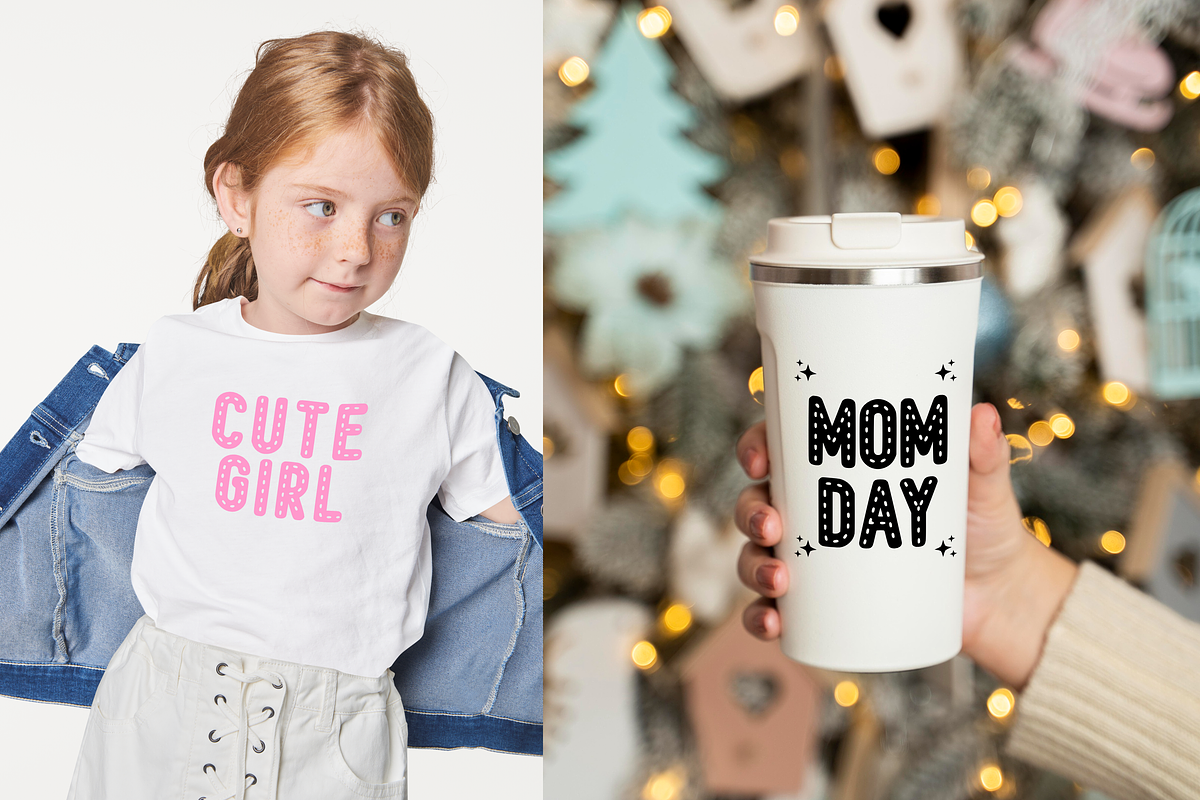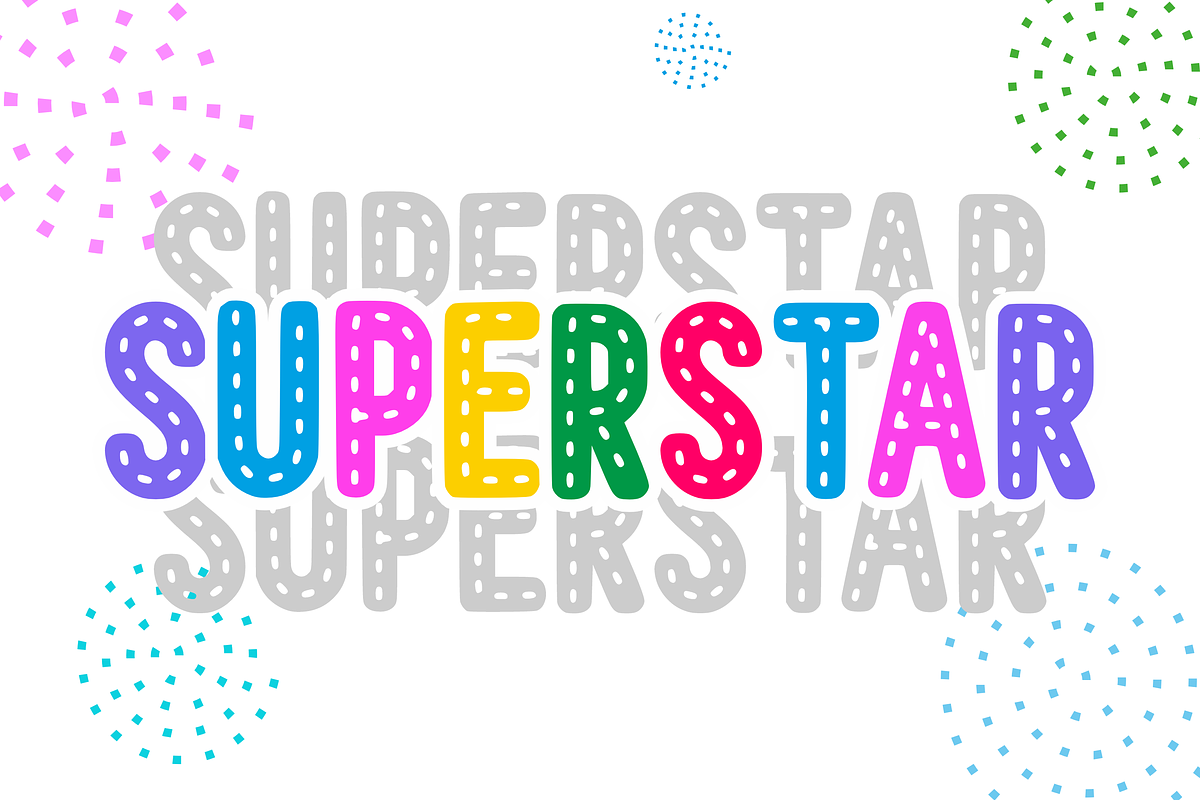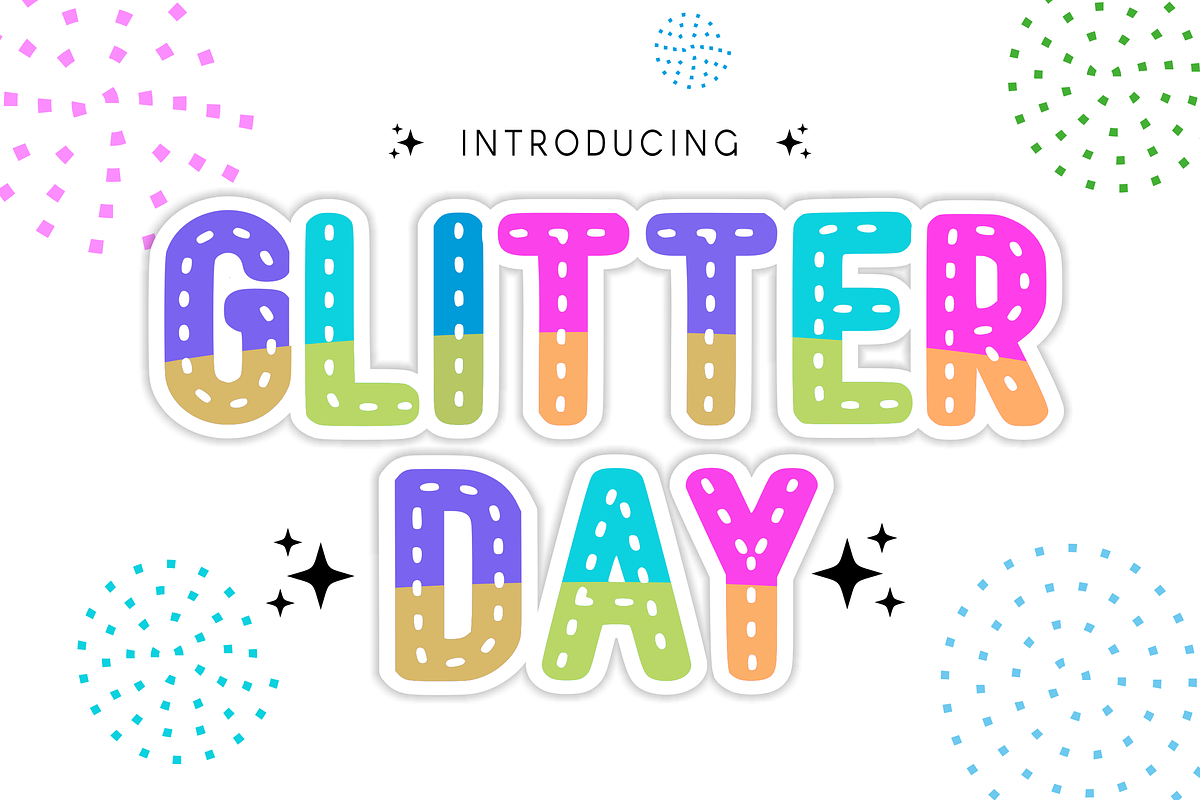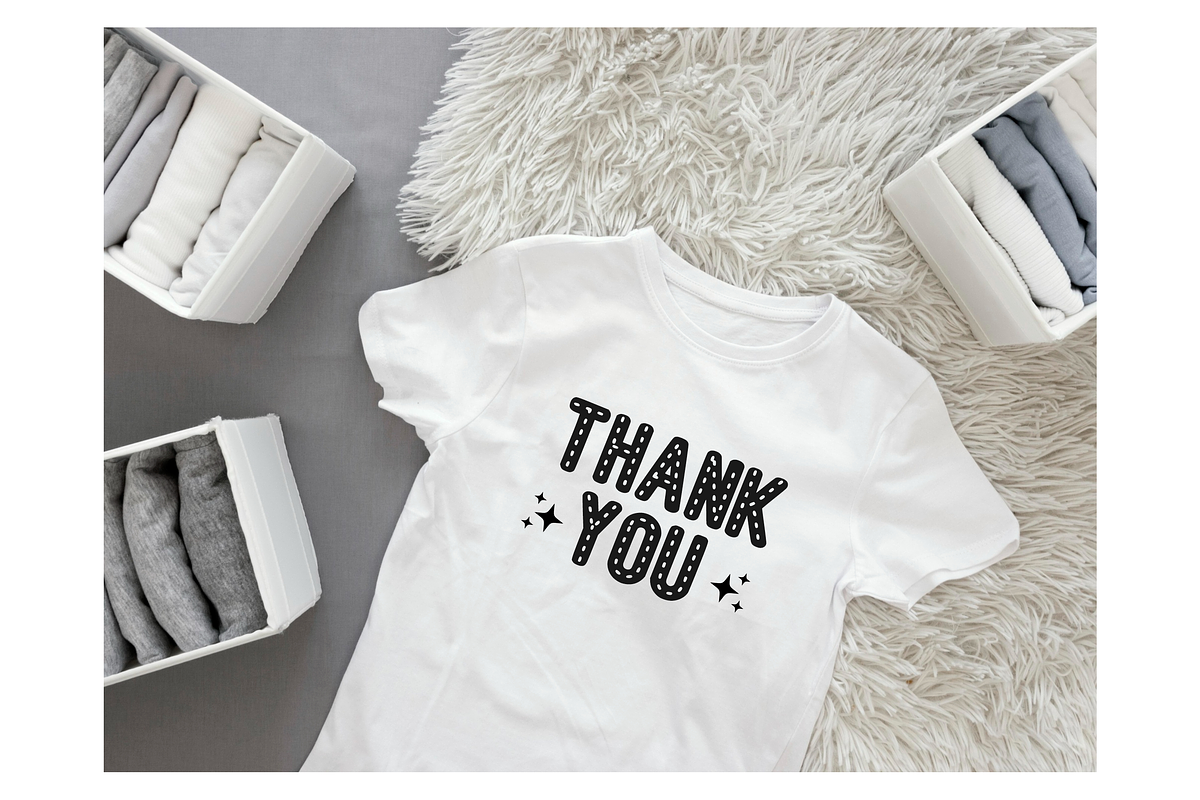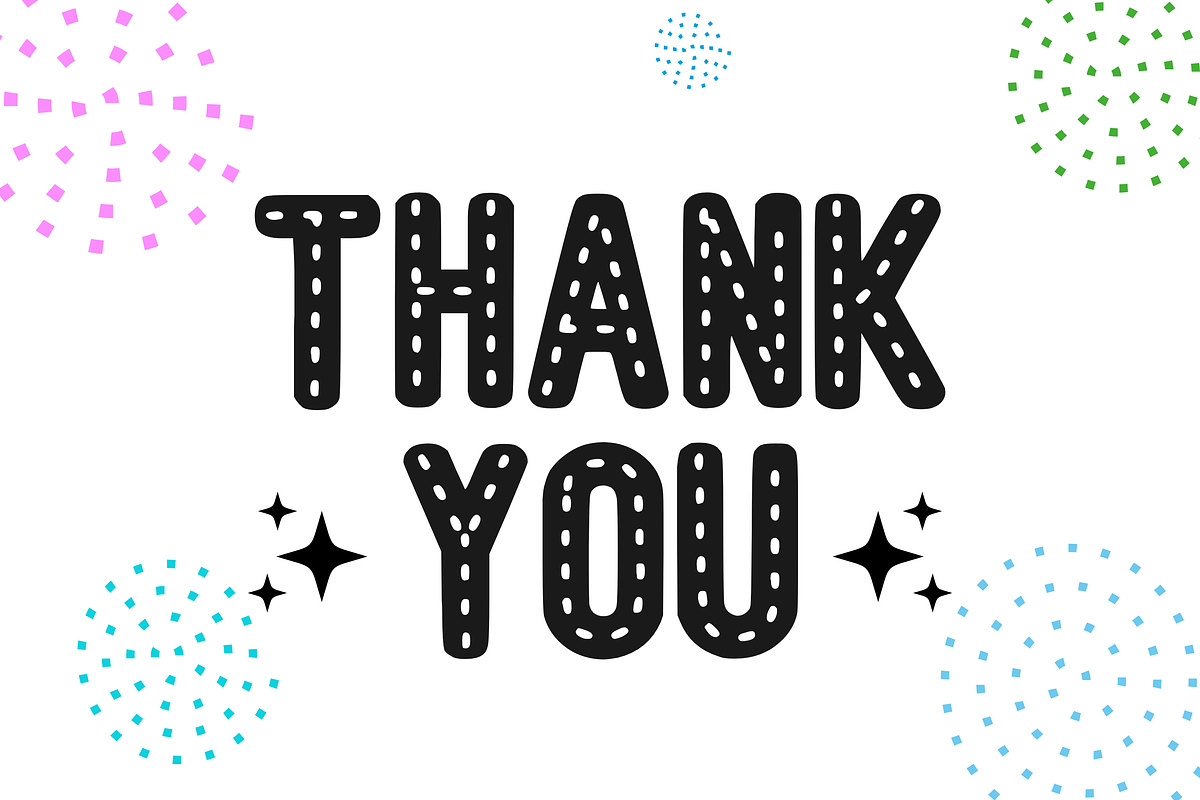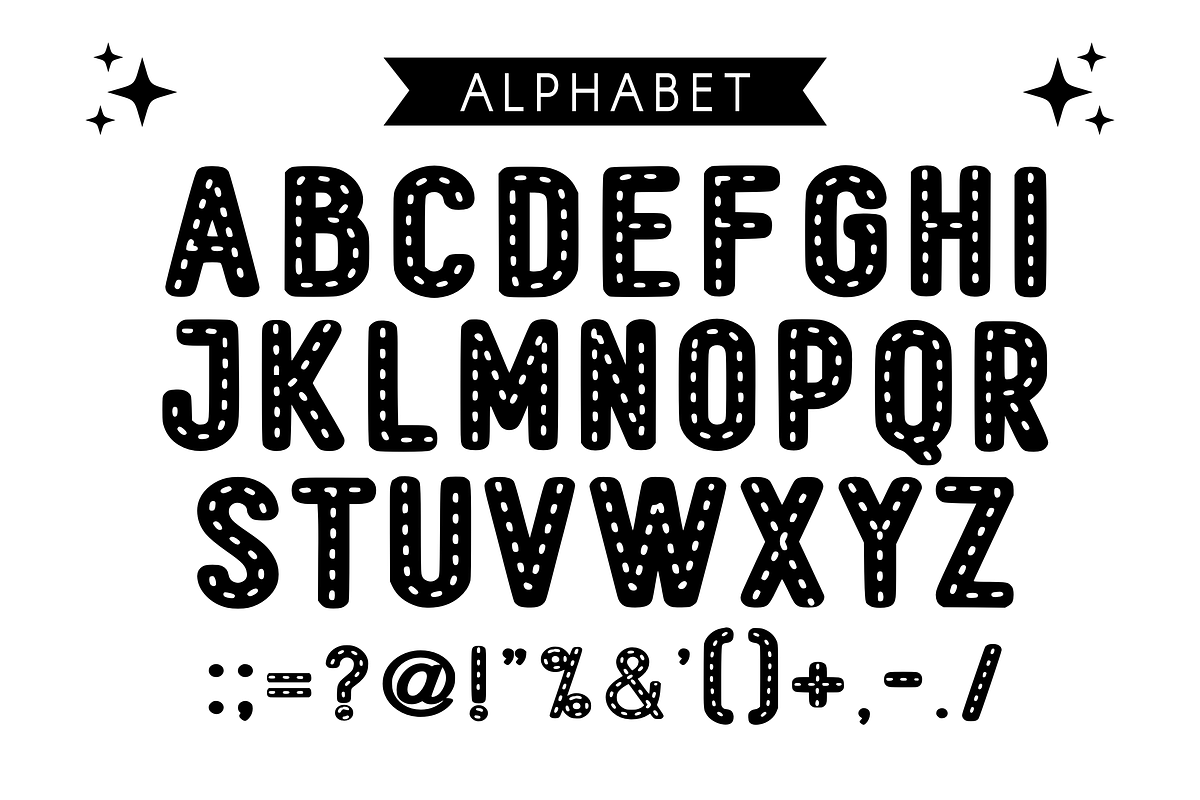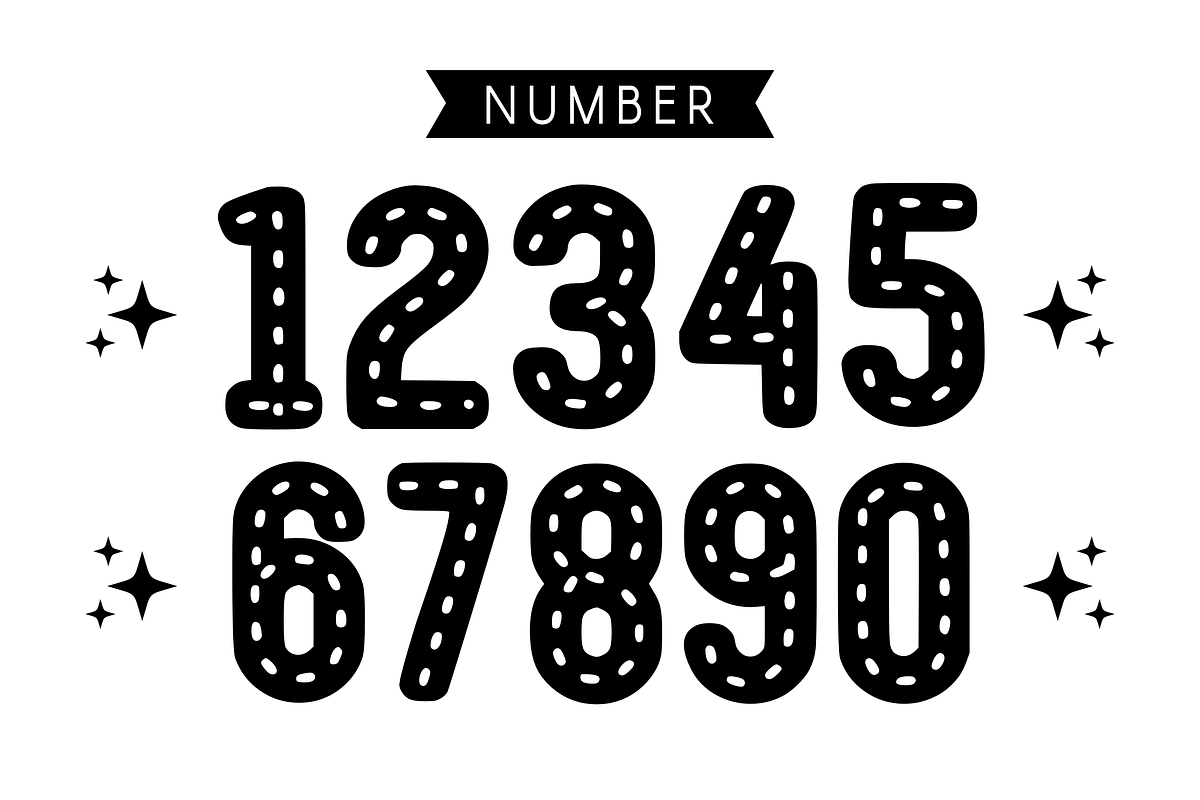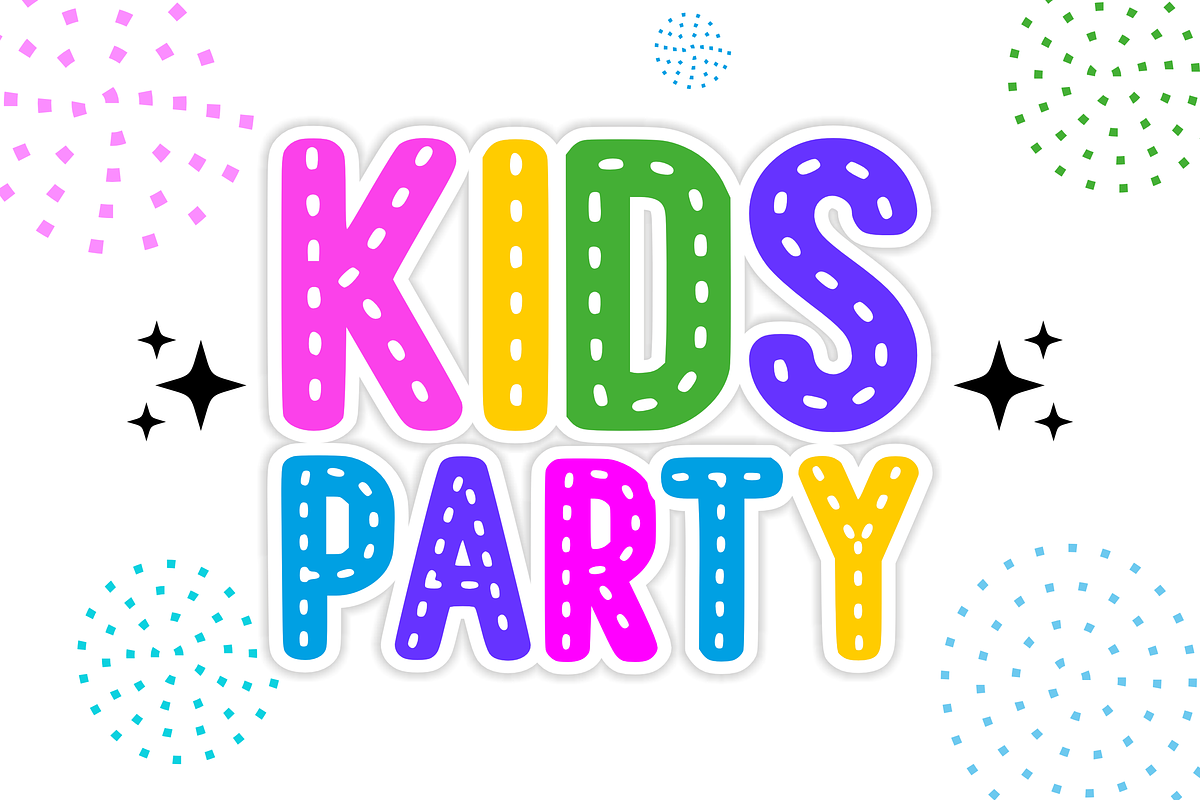
Glitter Day - Kids Font Types
Unveiling “Glitter Day,” an enchanting Decorative font exuding liveliness and glimmer in every curve and stroke. Each of its shimmering characters conveys a playful spirit and a touch of youthful spontaneity. It’s an ideal partner for a wide range of creative projects, such as personalizing t-shirts, accessorizing your coffee mugs, or dazzling up glass wraps. It also adds a touch of whimsy to kids’ parties, birthday celebrations, or any invitations where you want to sprinkle a hint of joy.